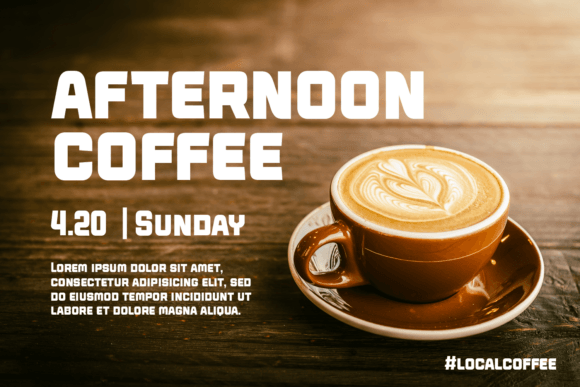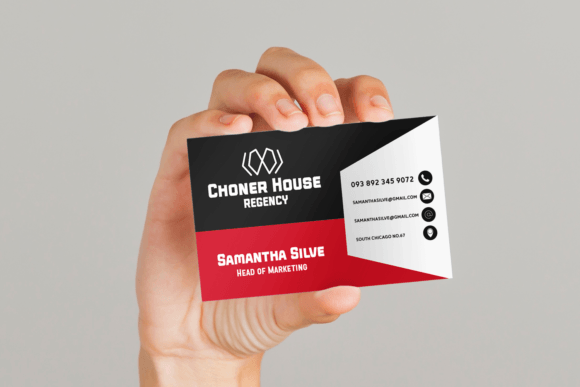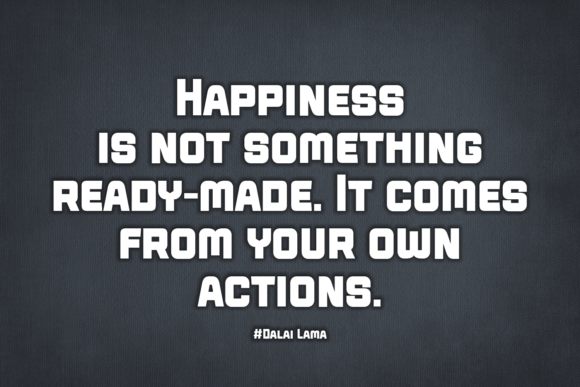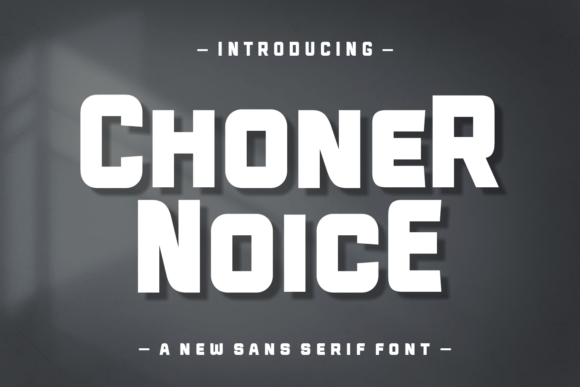
Introducing Choner Noice Font: The Ultimate Choice for Bold and Modern Designs
In the world of typography, fonts play a crucial role in conveying the message and tone of a design. For designers and crafters, finding the perfect font that combines style, readability, and versatility can be a daunting task. However, if you’re looking for a bold, clean, and modern sans-serif font that can elevate your designs, look no further than Choner Noice Font.
What is Choner Noice Font?
Choner Noice is a bold, clean, and modern sans-serif font that has been designed to make a statement. Its thick, smooth letters exude a strong and confident look, making it perfect for titles, logos, and headlines that need to stand out. The font’s straightforward style and ease of readability make it an excellent choice for designers who want to create simple yet impactful designs.
Key Features of Choner Noice Font
- Bold and Modern Design: Choner Noice has a bold and modern design that is sure to grab attention. Its thick letters and smooth curves give it a sleek and sophisticated look.
- Clean and Simple: The font has a clean and simple design that makes it easy to read and understand. This feature makes it perfect for designs that require a clear and concise message.
- Highly Versatile: Choner Noice is a highly versatile font that can be used in a variety of design projects, including titles, logos, headlines, and more.
- Easily Readable: The font is designed to be easily readable, making it perfect for designs that require a clear and concise message.
Uses of Choner Noice Font
Choner Noice is a versatile font that can be used in a variety of design projects. Here are some of the most popular uses of this font:
- Titles and Headlines: The font’s bold and modern design makes it perfect for titles and headlines that need to stand out.
- Logos and Branding: Choner Noice can be used to create logos and branding materials that require a strong and confident look.
- Advertising and Marketing: The font’s clean and simple design makes it perfect for advertising and marketing materials that require a clear and concise message.
- Web Design: Choner Noice can be used in web design to create bold and modern headings and titles that grab attention.
Benefits of Using Choner Noice Font
Using Choner Noice Font in your designs comes with several benefits. Here are some of the most significant advantages of using this font:
- Improved Readability: The font’s clean and simple design makes it easy to read and understand.
- Enhanced Visual Appeal: Choner Noice’s bold and modern design adds a touch of sophistication and elegance to any design.
- Increased Versatility: The font can be used in a variety of design projects, making it a great addition to any designer’s font library.
- Time-Saving: Choner Noice is a pre-designed font that can save designers time and effort in creating custom typography.
In conclusion, Choner Noice Font is a bold, clean, and modern sans-serif font that is perfect for designers and crafters who want to create impactful designs. Its thick, smooth letters and straightforward style make it easy to read and understand, while its versatility makes it suitable for a variety of design projects. Whether you’re creating titles, logos, headlines, or advertising materials, Choner Noice is an excellent choice that can elevate your designs and add a touch of sophistication and elegance.
So, if you’re looking for a font that can help you create bold and modern designs, look no further than Choner Noice Font. With its impressive features, versatility, and benefits, this font is sure to become a staple in your font library.